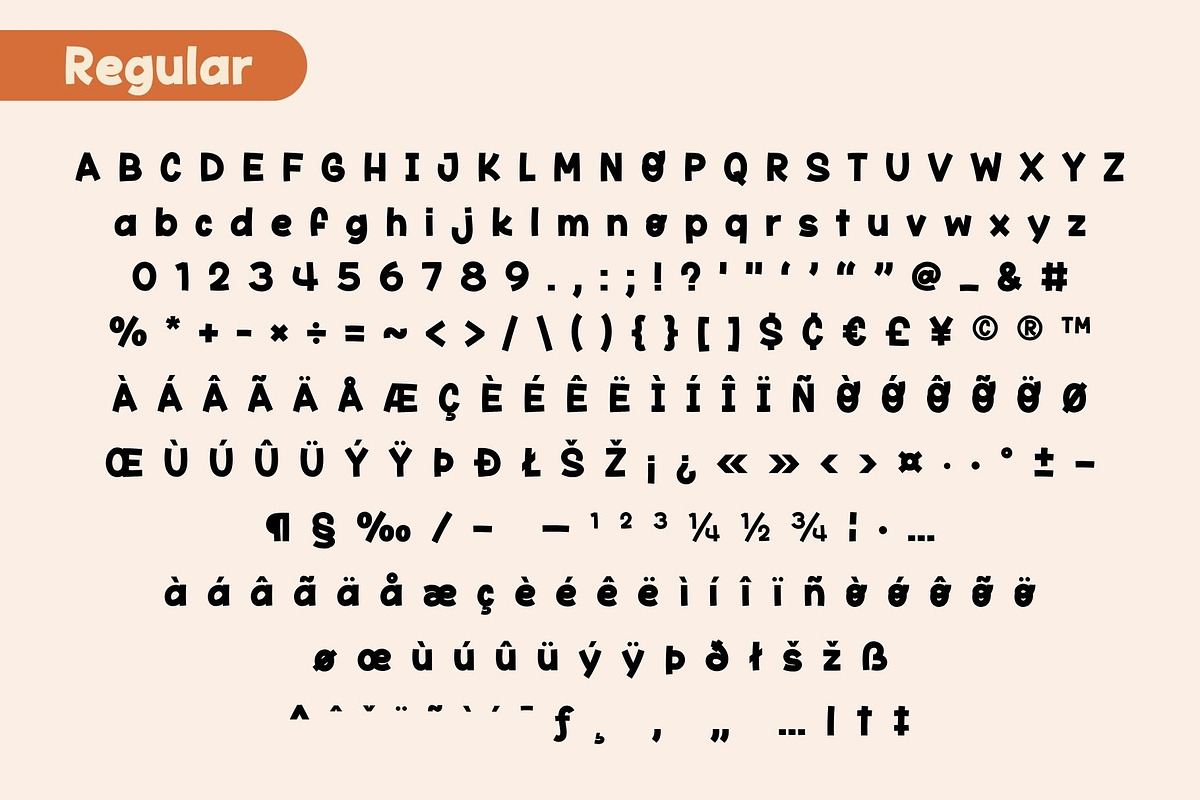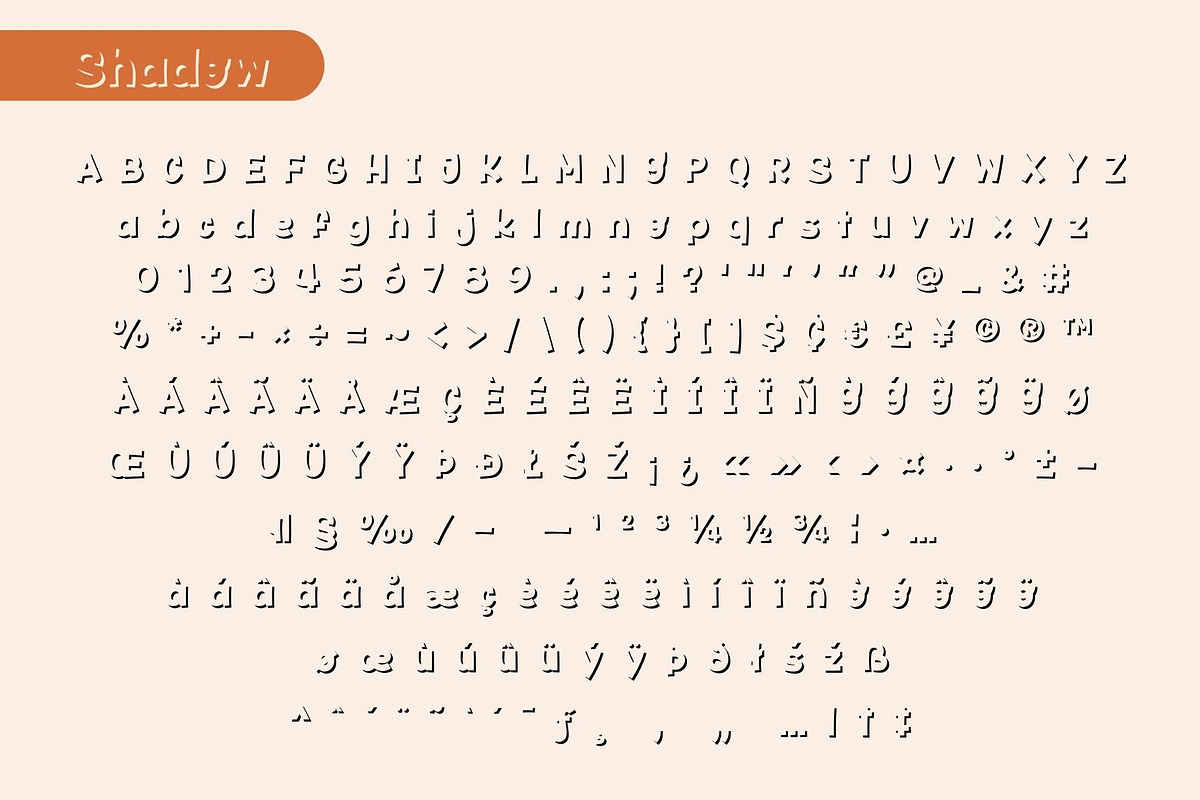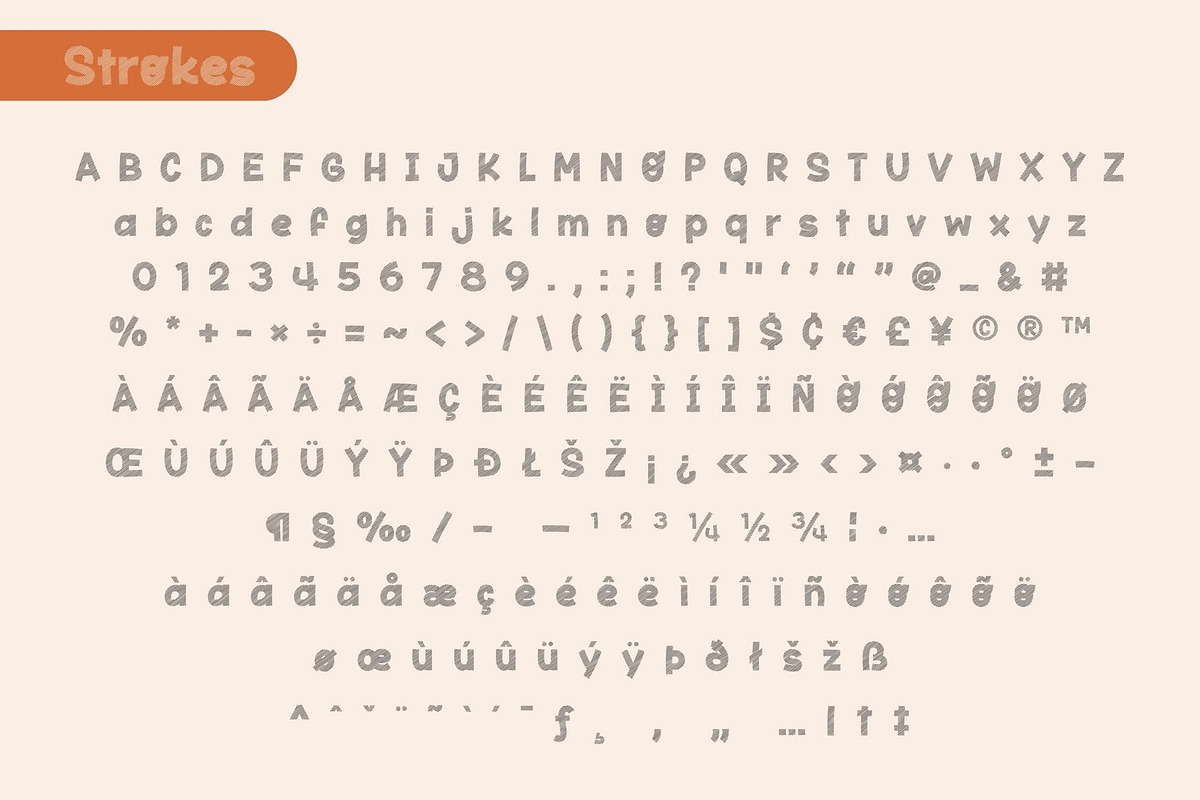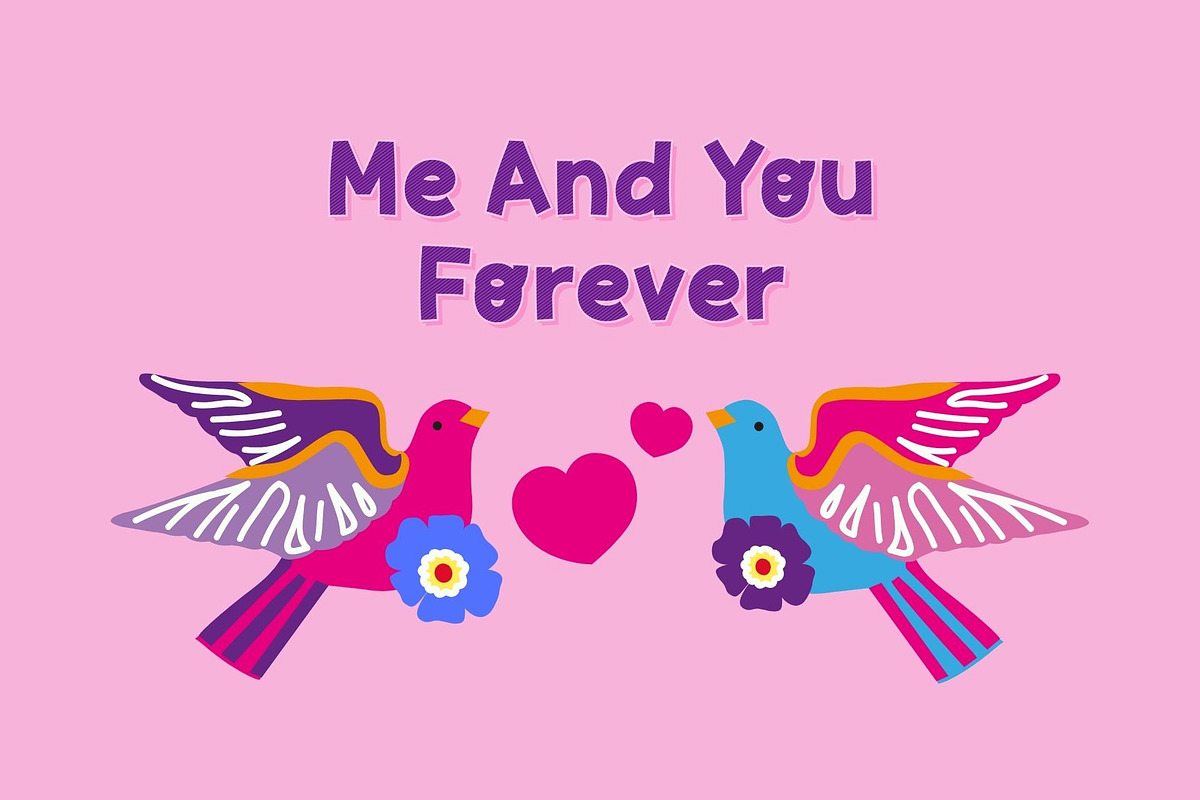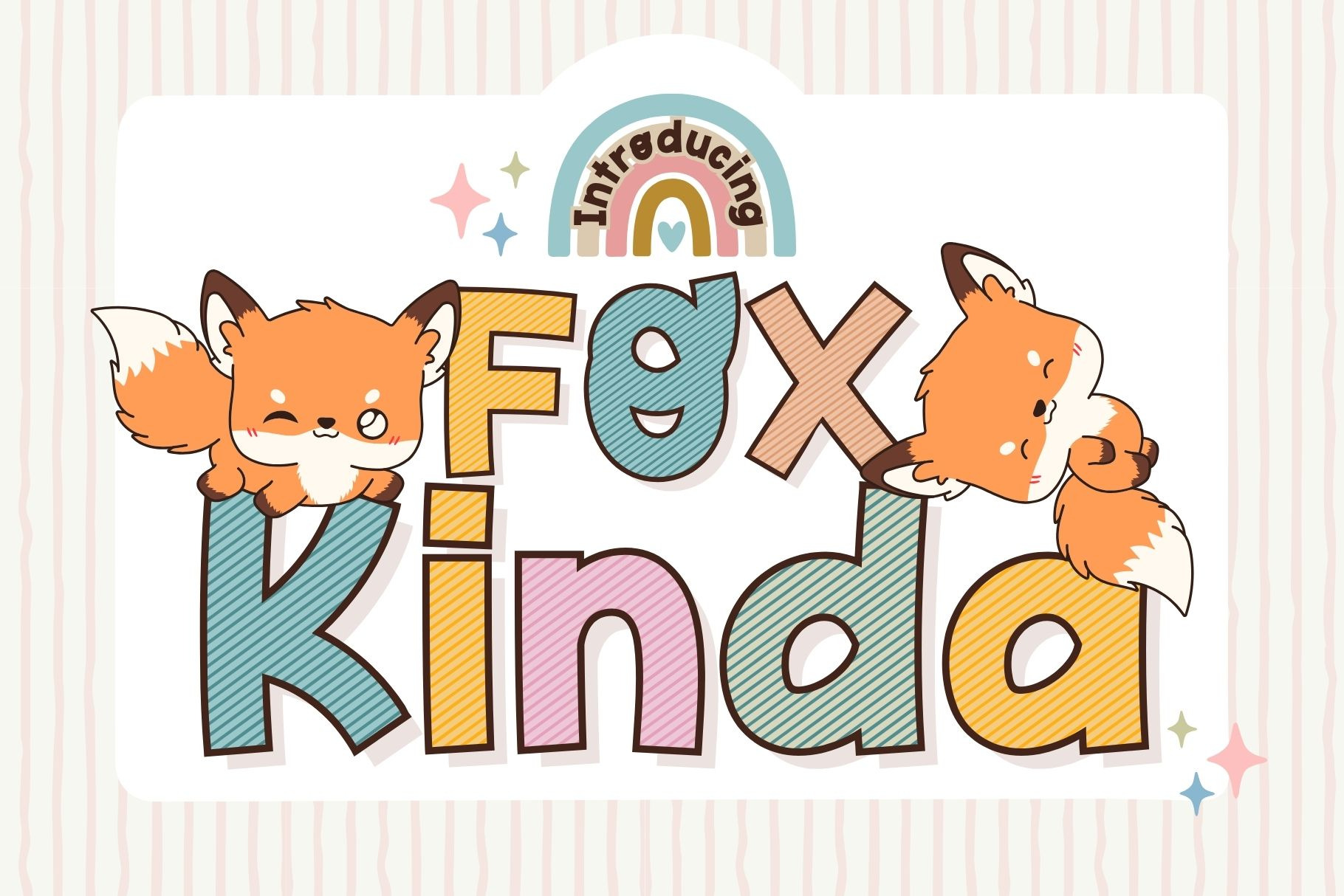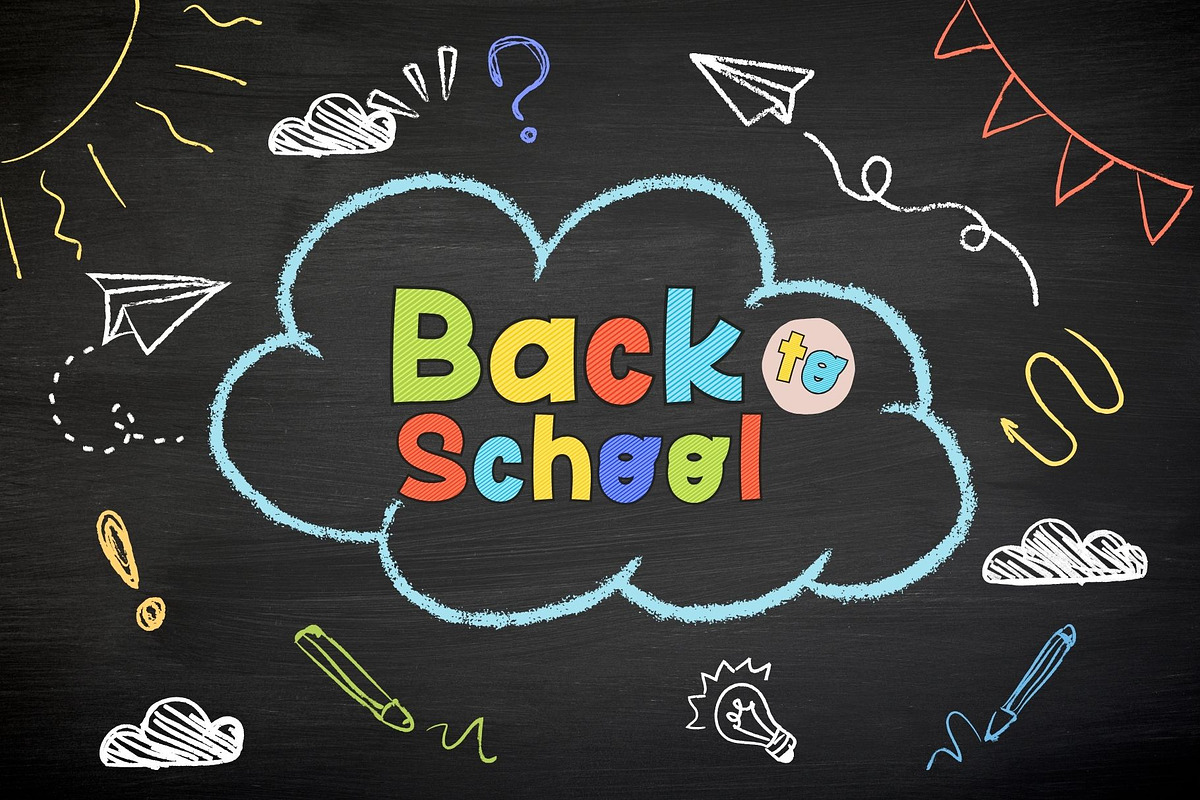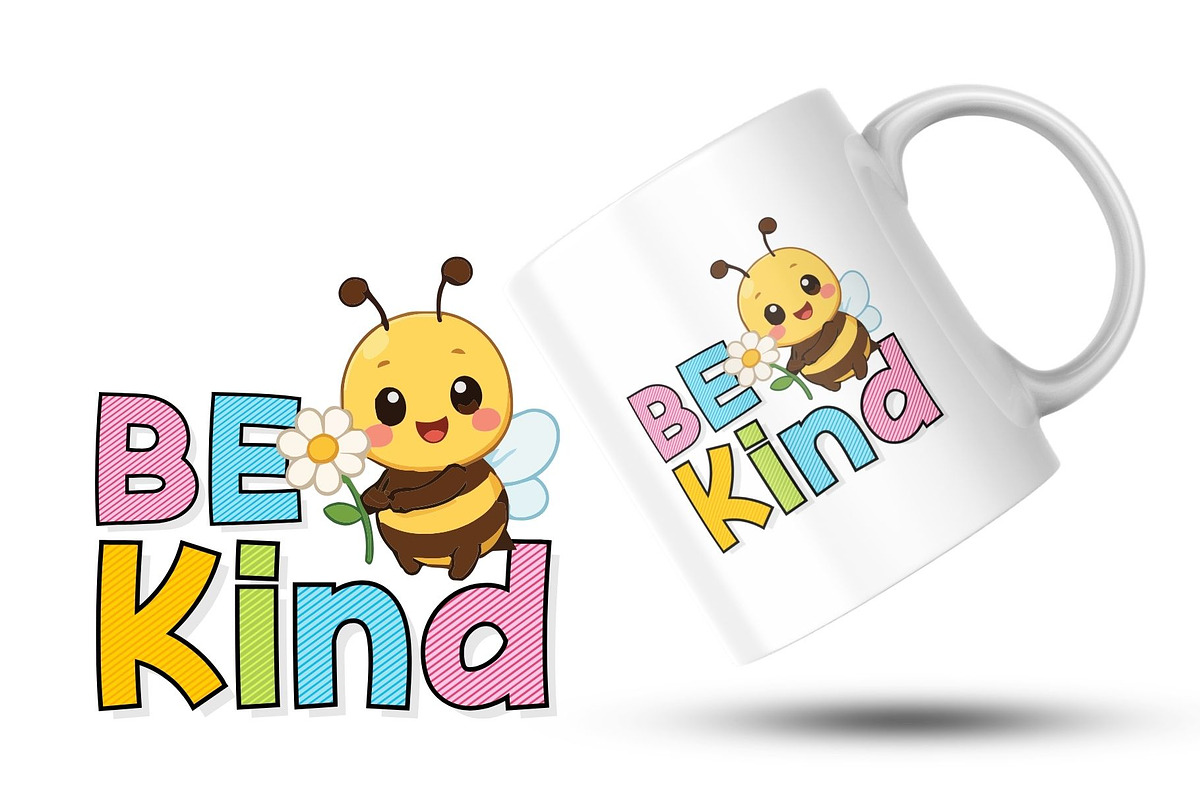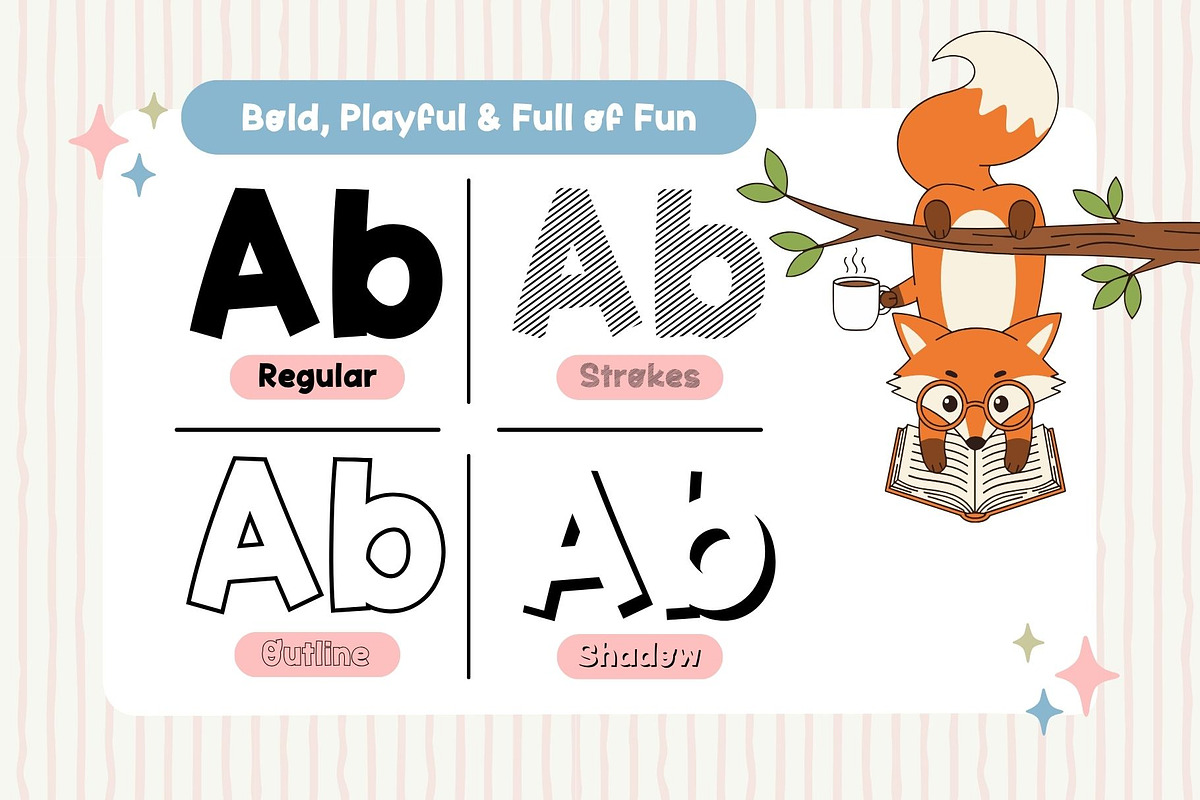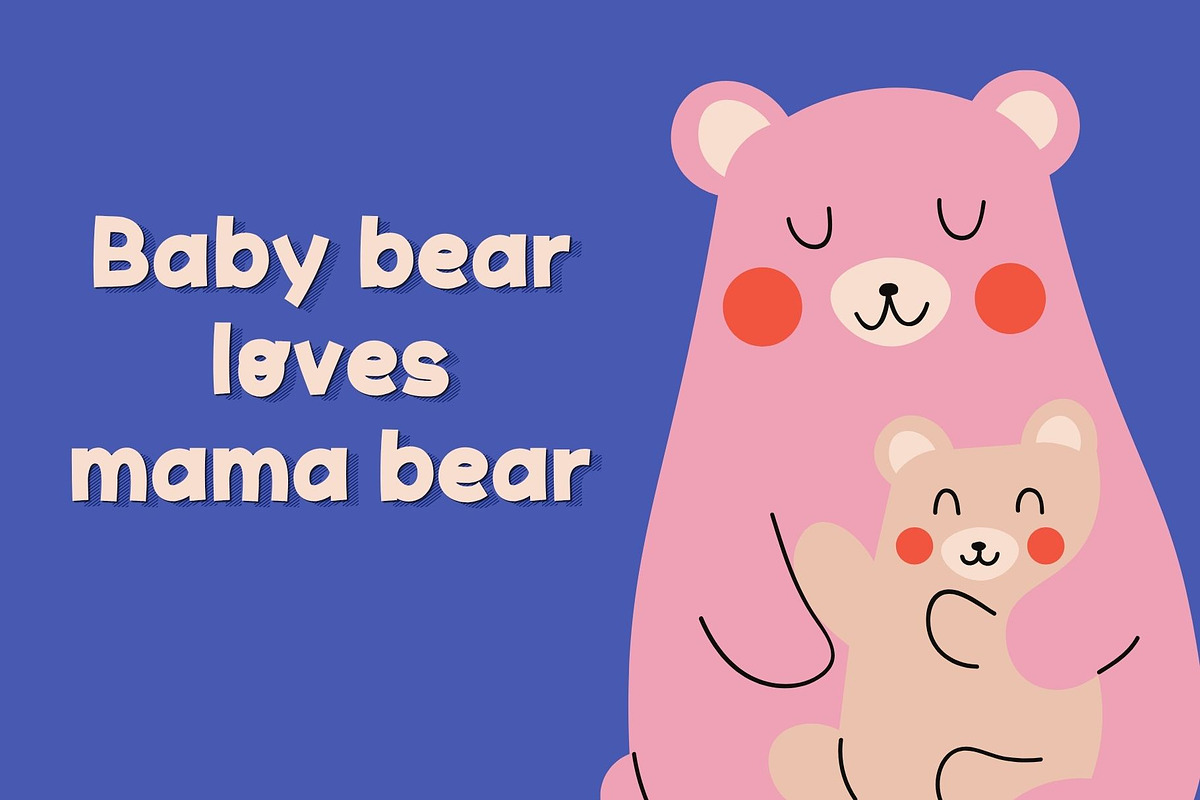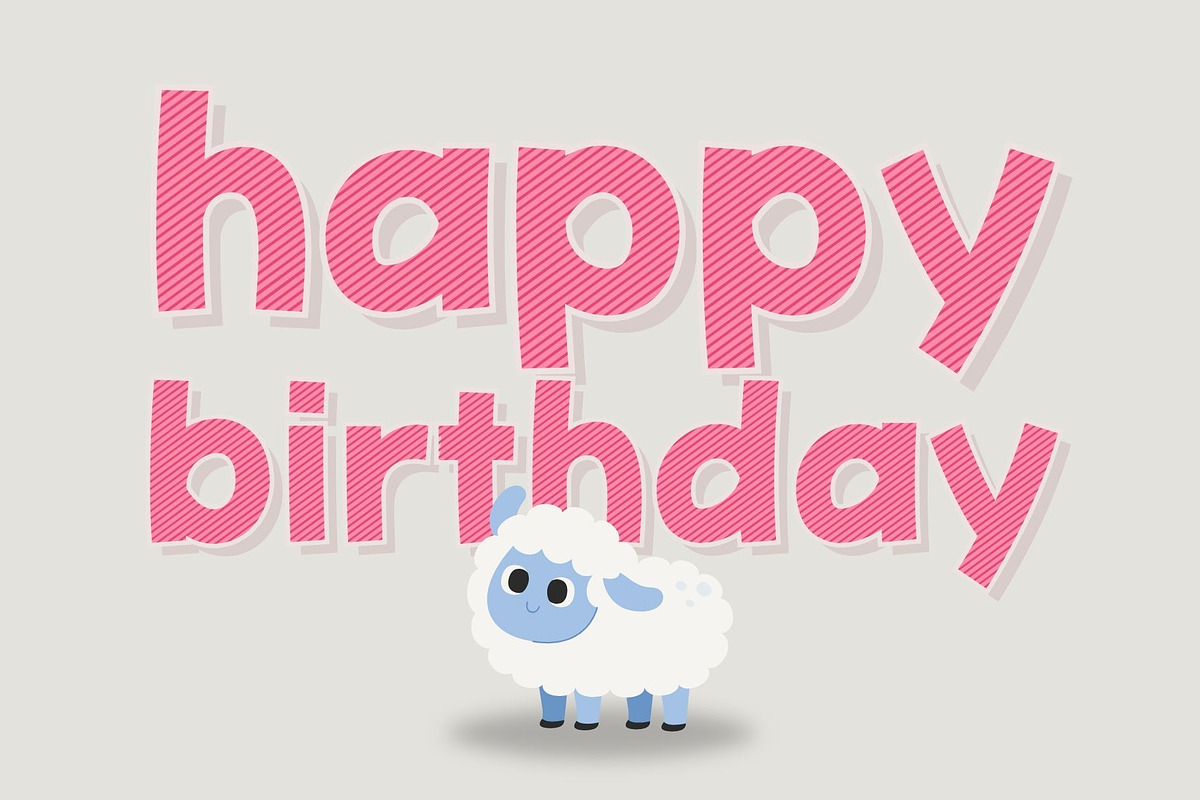
Fox Kinda Font
Meet Fox Kinda_, a charming, thick-lettered display font _packed with personality and warmth! Inspired by cute woodland vibes, this font is designed to instantly make your creative projects pop with joy.
Fox Kinda comes in 4 versatile styles (Regular, Strokes, Outline, and Shadow), giving you endless creative possibilities for mixing, matching, and layering. Whether you're designing adorable t-shirt prints, playful stickers, colorful mugs, greeting cards, nursery decor, or digital scrapbooking, this font brings a sweet, handmade charm to everything it touches.